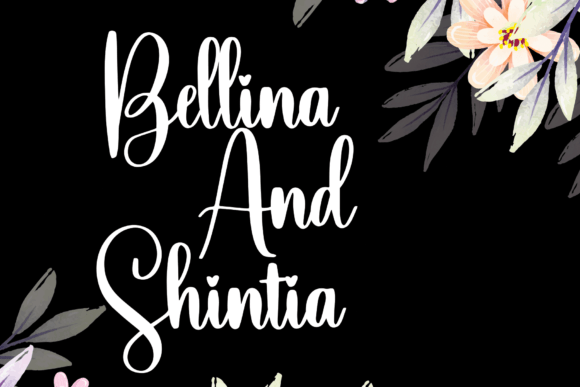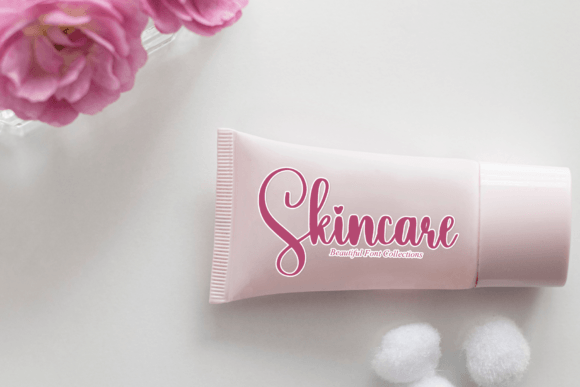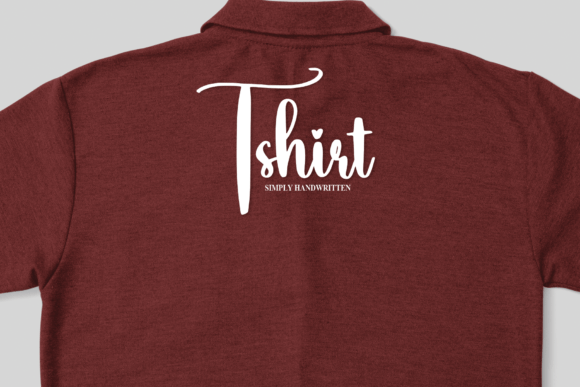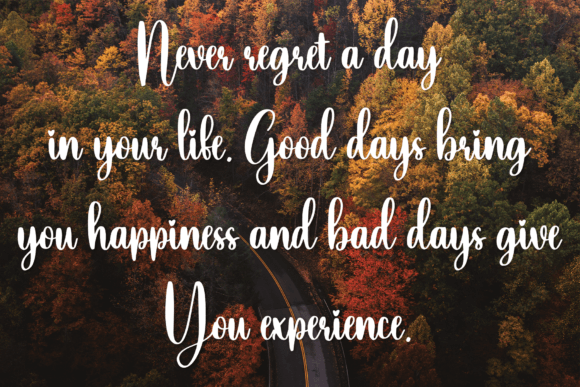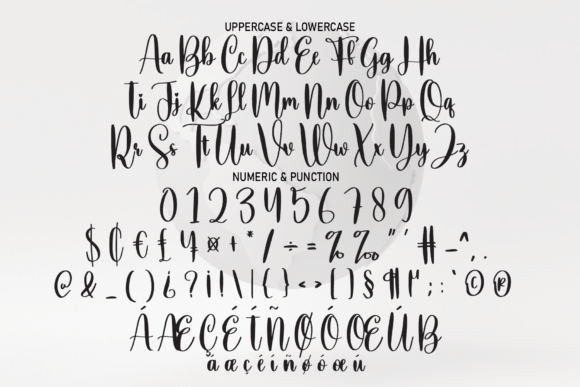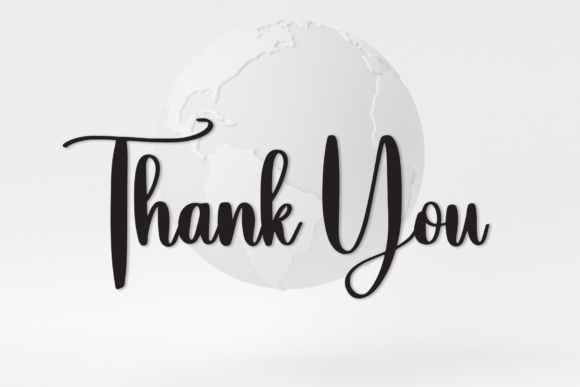
Earth Font: The Charming and Elegant Choice for Designers and Crafters
Are you a designer or crafter looking for a font that exudes elegance and charm? Look no further than the Earth Font. This beautiful, handwritten font is perfect for adding a personal touch to a variety of design projects, from wedding invitations and thank you cards to quotes, greeting cards, logos, and business cards.
What is Earth Font?
Earth Font is a stunning, handwritten font that is designed to look like it was written with a pen or pencil. Its elegant and charming appearance makes it perfect for a wide range of design projects, from formal events like weddings and baby showers to everyday designs like greeting cards and quotes.
Characteristics of Earth Font
So, what makes Earth Font so special? Here are just a few of its key characteristics:
• Elegant and charming: Earth Font has a sophisticated, elegant appearance that is perfect for formal events and designs.
• Handwritten: This font is designed to look like it was written by hand, giving it a personal and unique touch.
• Versatile: Earth Font can be used for a wide range of design projects, from wedding invitations and thank you cards to quotes, greeting cards, logos, and business cards.
• Easy to read: Despite its elegant appearance, Earth Font is easy to read, making it perfect for designs that require a lot of text.
Uses for Earth Font
So, what can you use Earth Font for? The possibilities are endless! Here are a few ideas to get you started:
• Wedding invitations: Earth Font is perfect for wedding invitations, adding a touch of elegance and sophistication to your big day.
• Thank you cards: Show your appreciation with beautiful, handwritten-style thank you cards featuring Earth Font.
• Quotes: Add a touch of elegance to your favorite quotes with Earth Font.
• Greeting cards: Earth Font is perfect for birthday cards, Christmas cards, and other holiday greetings.
• Logos: Use Earth Font to create a unique and memorable logo for your business or brand.
• Business cards: Stand out from the crowd with elegant, handwritten-style business cards featuring Earth Font.
Tips for Using Earth Font
Here are a few tips for getting the most out of Earth Font:
• Use it sparingly: Earth Font is elegant and charming, but it can be overwhelming if used too much. Use it sparingly to add a touch of sophistication to your designs.
• Pair it with other fonts: Earth Font pairs well with a variety of other fonts, including serif and sans serif fonts. Experiment with different pairings to find the one that works best for your design.
• Experiment with colors: Earth Font looks great in a variety of colors, from classic black and white to bold and bright colors. Experiment with different colors to find the one that works best for your design.
Earth Font is a beautiful, elegant, and charming font that is perfect for designers and crafters looking to add a personal touch to their designs. With its handwritten appearance and versatile uses, Earth Font is sure to become a favorite in your design toolkit. Whether you’re creating wedding invitations, thank you cards, quotes, greeting cards, logos, or business cards, Earth Font is the perfect choice.